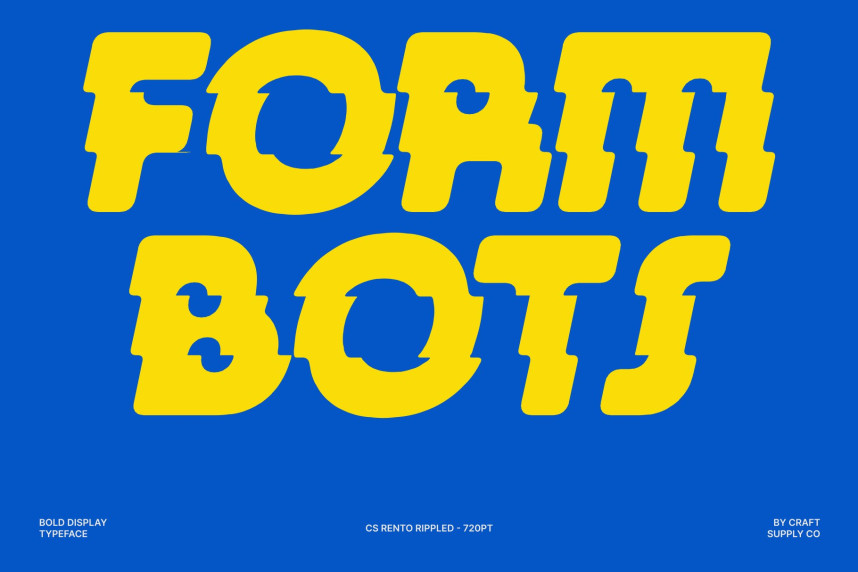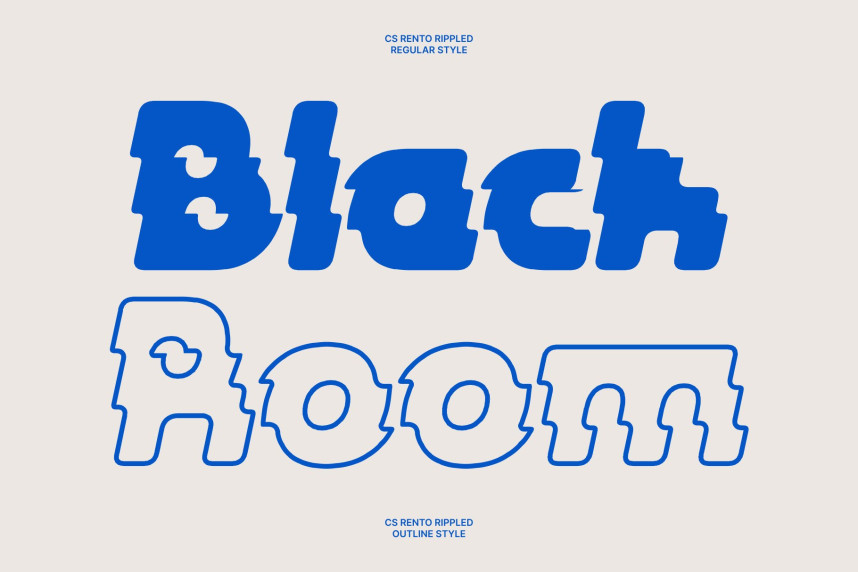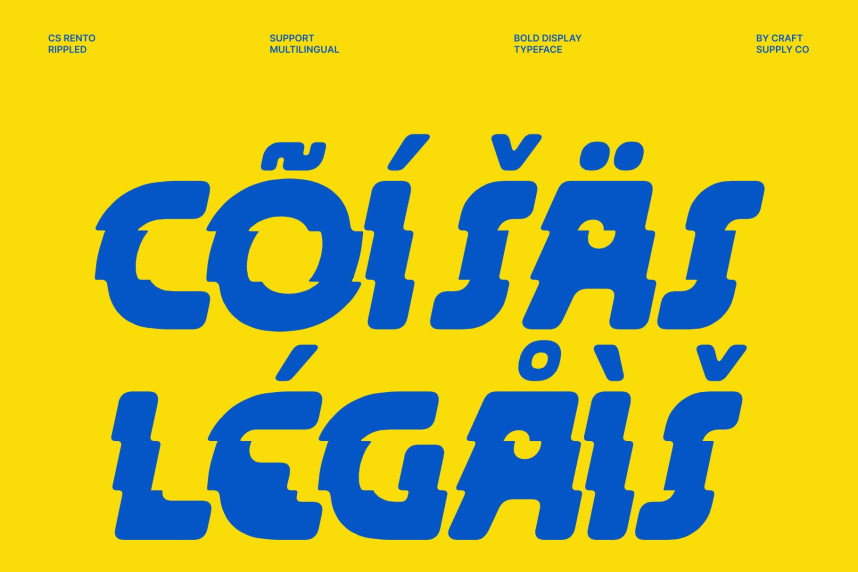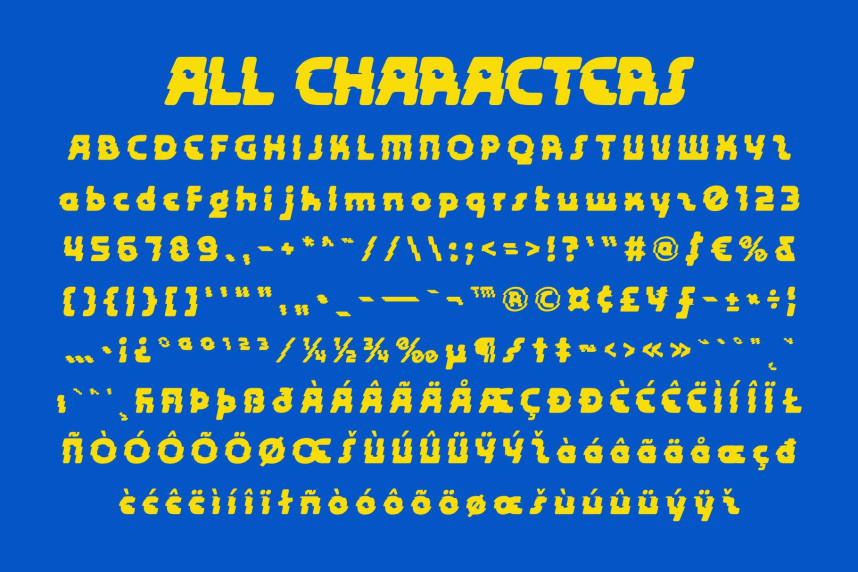
CS Rento Rippled Font
CS Rento Rippled Font – Bold Display Font: Where Futuristic Geometry Meets Fluid Wave Motion
Strong Geometric Forms with Modern Softness
This is a bold display font crafted from powerful geometric shapes balanced by smooth, soft curves. This unique combination creates a striking visual identity that feels both strong and approachable. Blending futuristic influence with contemporary design aesthetics, it delivers a bold presence while maintaining a refined and modern character.